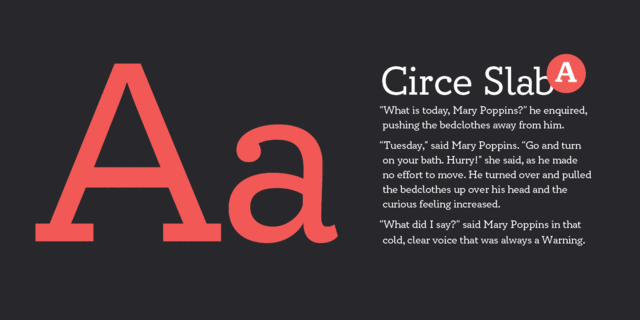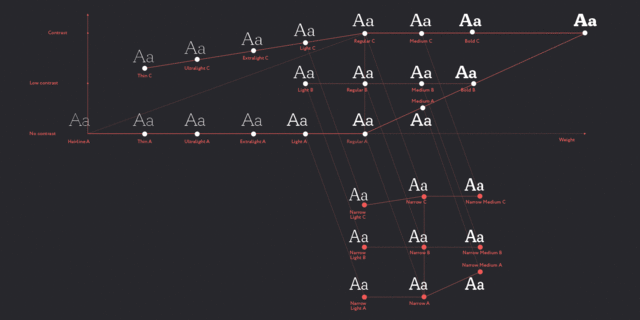
Circe Slab A (17 fonts)
About Circe Slab A is a non-contrast slab version of the popular geometric sans serif Circe. Typography Red Dot Award 2020 winner. It contains variations in weight and contrast, including three regular styles that range from non-contrasting geometric (Circe Slab A) to almost typical book serif contrast ones (Circe Slab C). In addition, all text styles have narrowed versions. The character set of the font includes small caps, minuscule figures and a wide variety of alternative capitals and small caps. Regular styles of Circe Slab are suitable for long texts and the light and bold ones for headlines. The winner of Granshan 2019 Awards 1st prize (Cyrillic-Latin Typefaces). The font was designed by Alexandra Korolkova with the assistance of Oleksa Volochay and released by Paratype in 2018. Italic styles were added in 2021.
delicate, clean, easy, chilly, fashionable, thin, modern, high-quality, weightless, transparent, intimate, fragile, tender, air, glass, sharp, wire, fresh, clear, flat, stable, static, cultural, urban, strict, accurate, solid, motivating